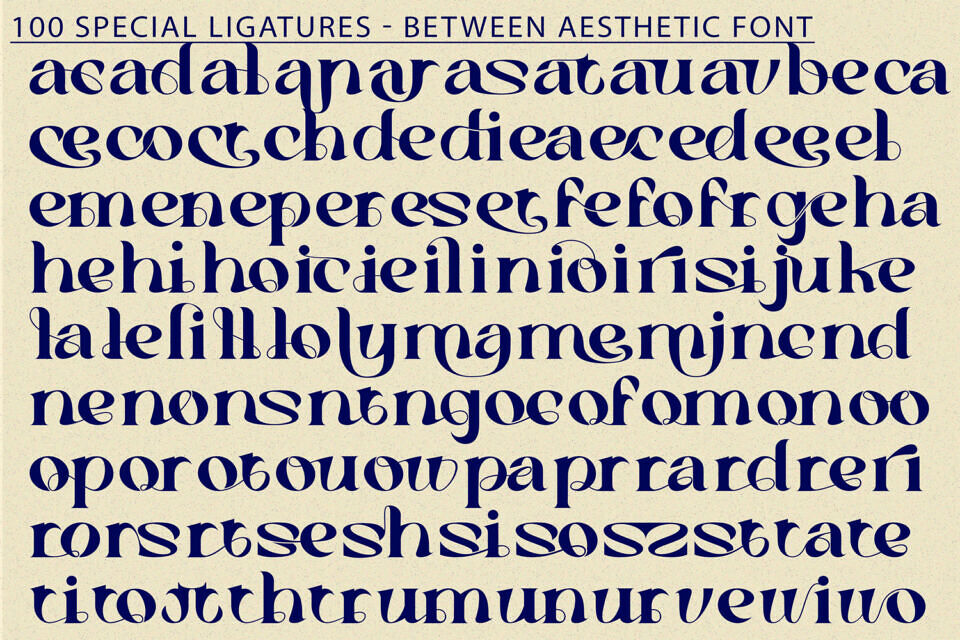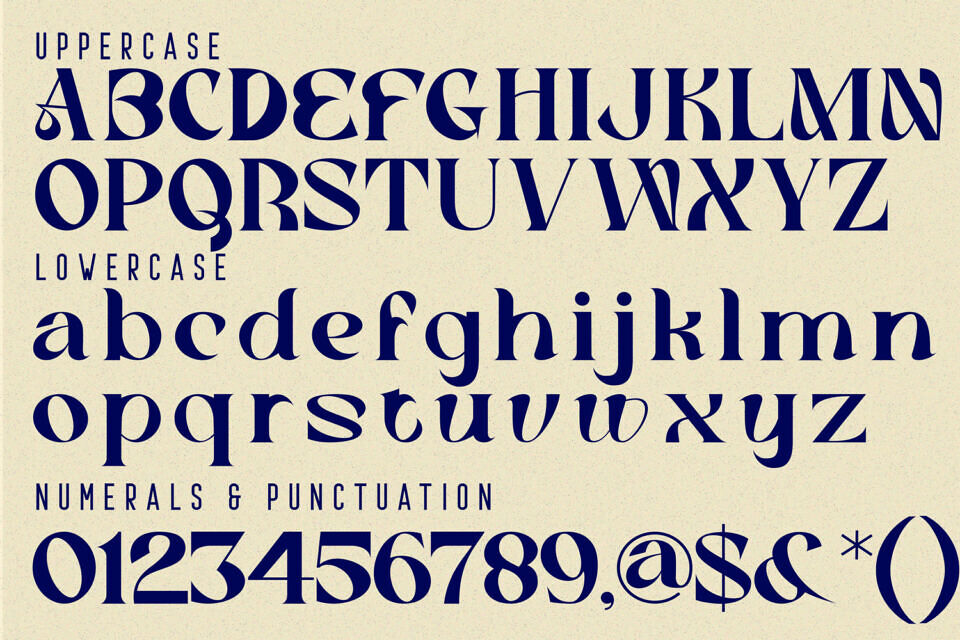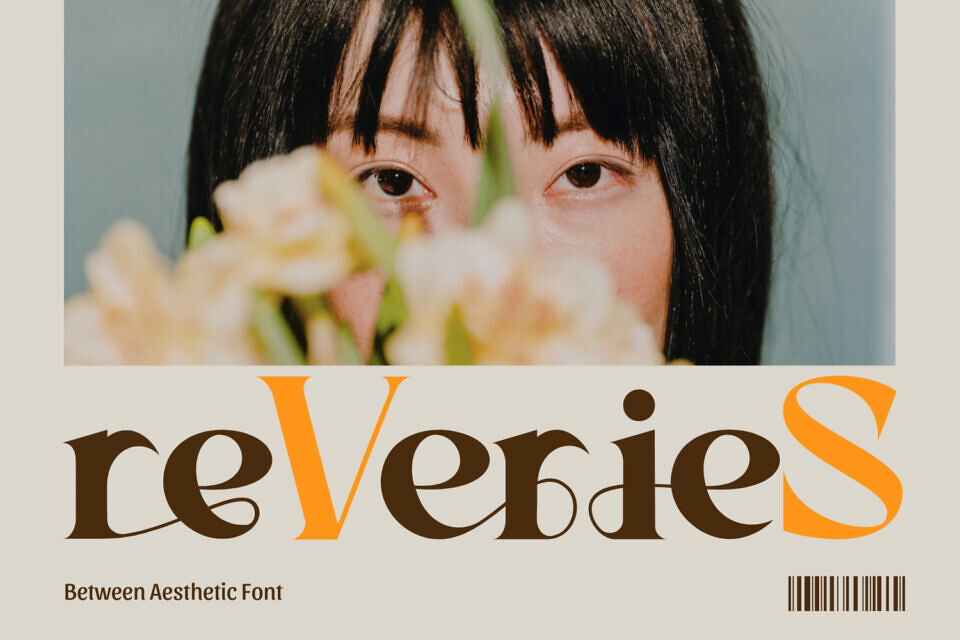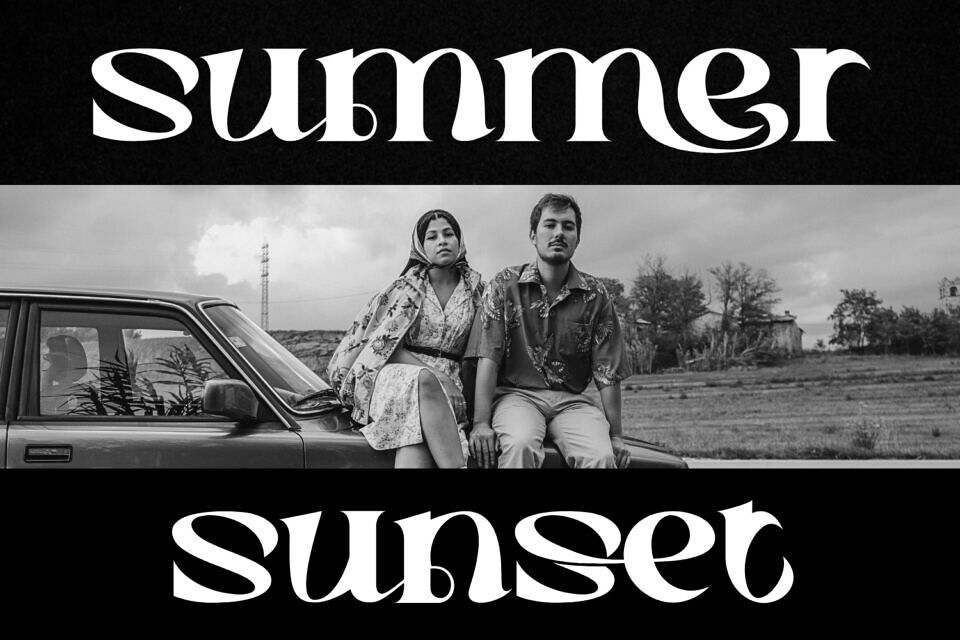
Between Aesthetic Font
Between Aesthetic is an elegant stylish serif typeface that blends retro charm with modern sophistication. Featuring smooth curves, subtle stroke contrast, and distinctive teardrop terminals, this font delivers a unique and inviting personality to your designs.
Perfect for branding, editorial layouts, packaging, wedding invitations, and high-end advertising, it offers both elegance and versatility. With over 100 custom ligatures, Between Aesthetic ensures natural letter connections and beautifully composed typography, allowing your text to feel as if it was crafted by hand.